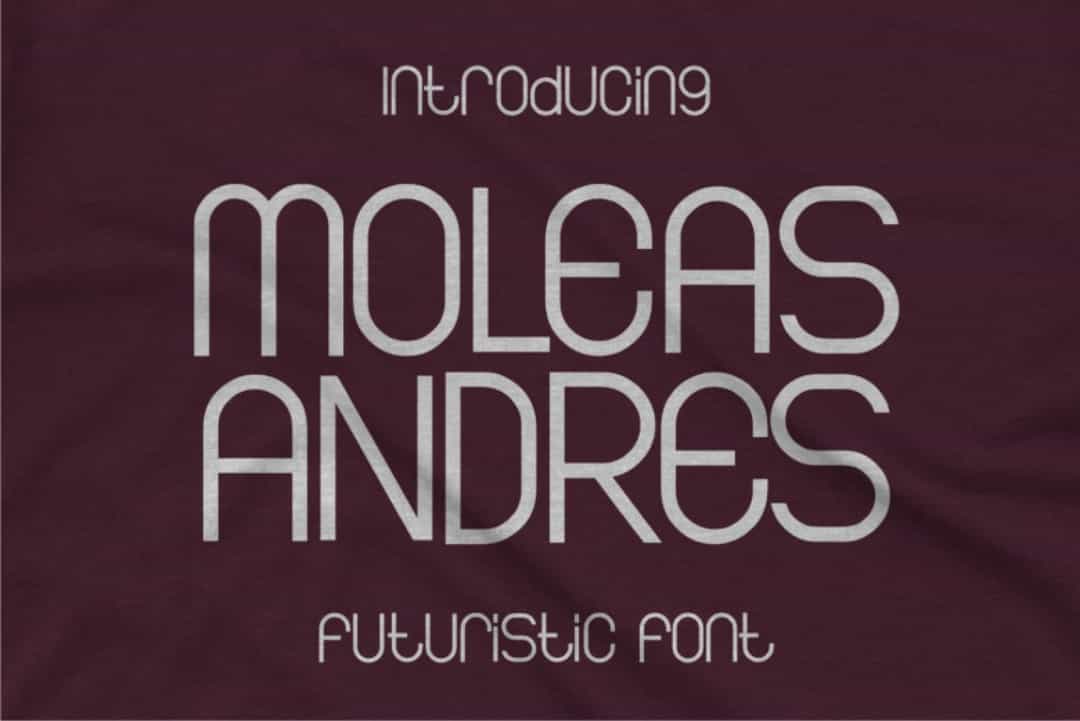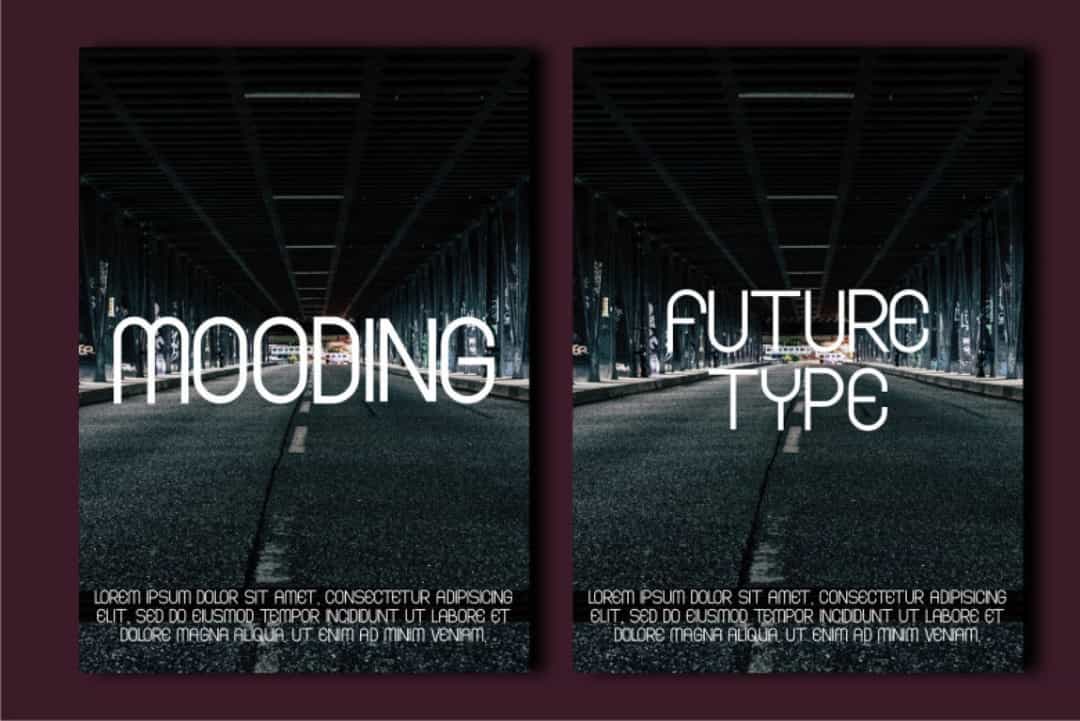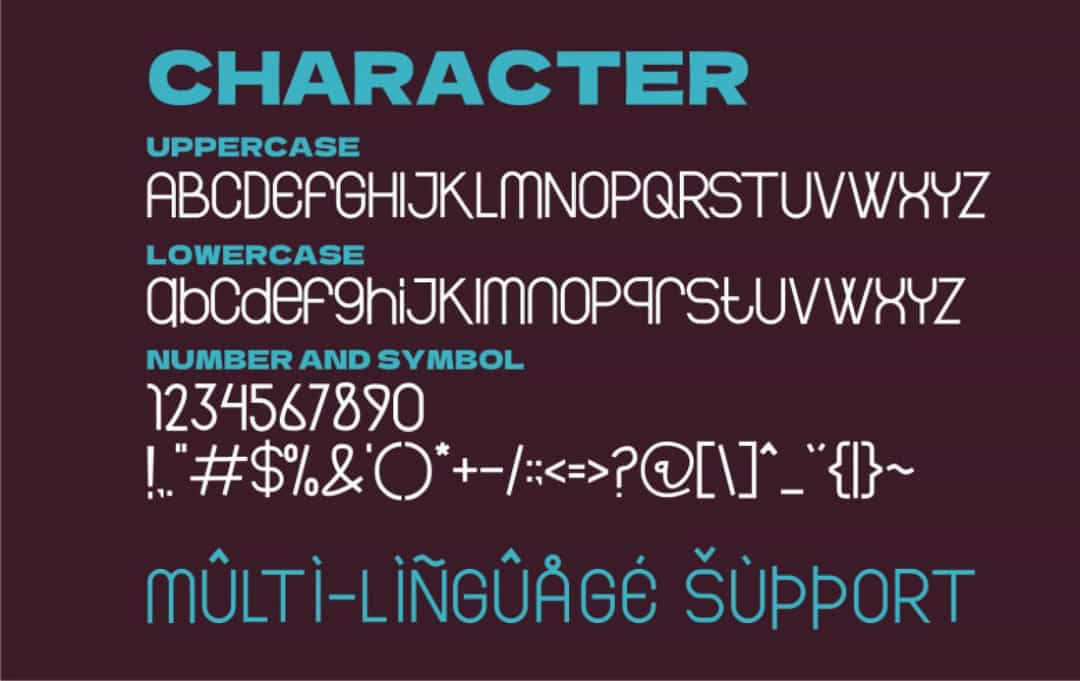
Moleas Andres Font is an eye-catching modern display typeface. Perfect for logos, T-shirts, sportswear advertising and clothing designs or other creative endeavors that require an attractive appearance!